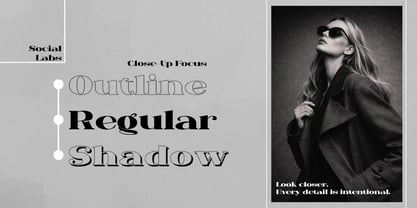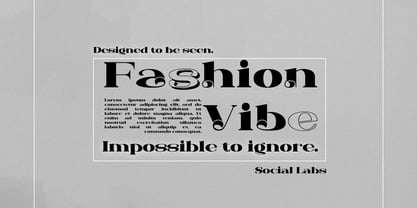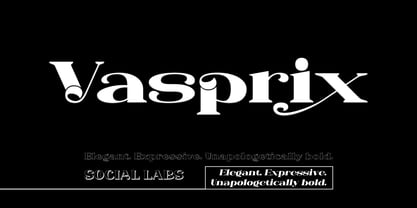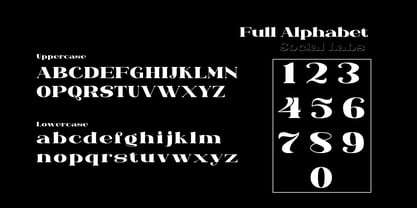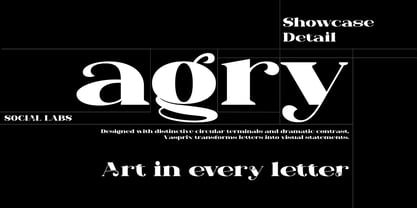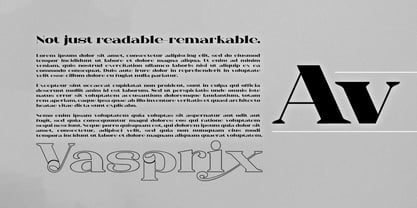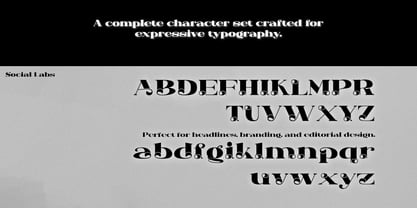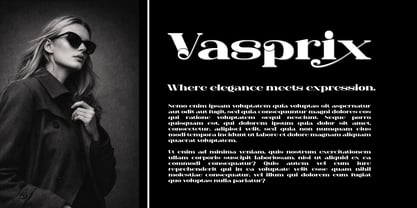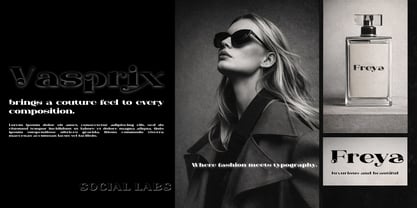
Vasprix
by Social Labs
The Vasprix Font Family was designed by Muhammad Naufal and published by Social Labs. Vasprix contains 4 styles and family package options. More about this family
Vasprix is a high-contrast decorative serif typeface designed to blend classical elegance with an expressive modern approach through unconventional letterforms and distinctive ornamental details, resulting in a rich, dramatic, and characterful visual appearance. Each letter serves not only as a communicative element but also as a prominent aesthetic feature, thereby creating a luxurious, artistic, and avant-garde impression, making it highly suitable for display applications such as headlines, branding, editorial work, fashion campaigns, and experimental designs that require a bold, distinctive, and memorable visual identity-especially when used in large sizes with spacious compositions to maximize the contrast of strokes and the beauty of its details.
Designers: Muhammad Naufal
Foundry: Social Labs